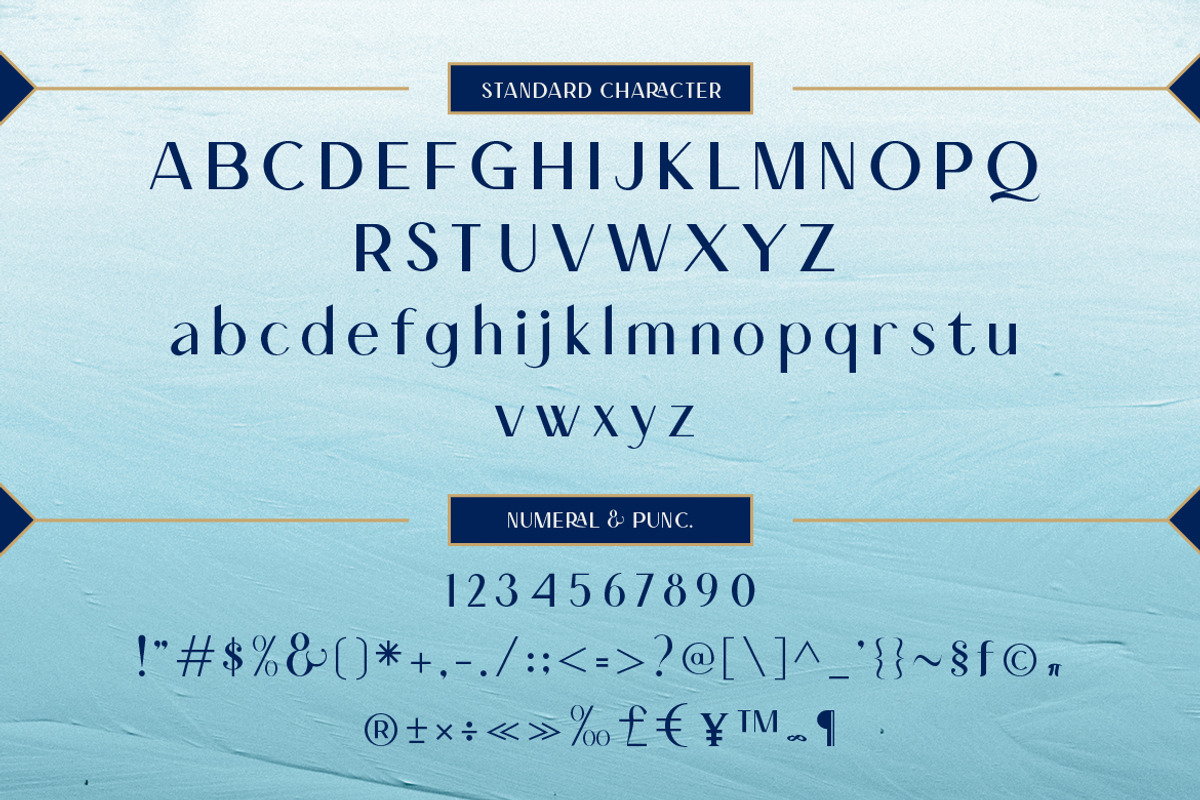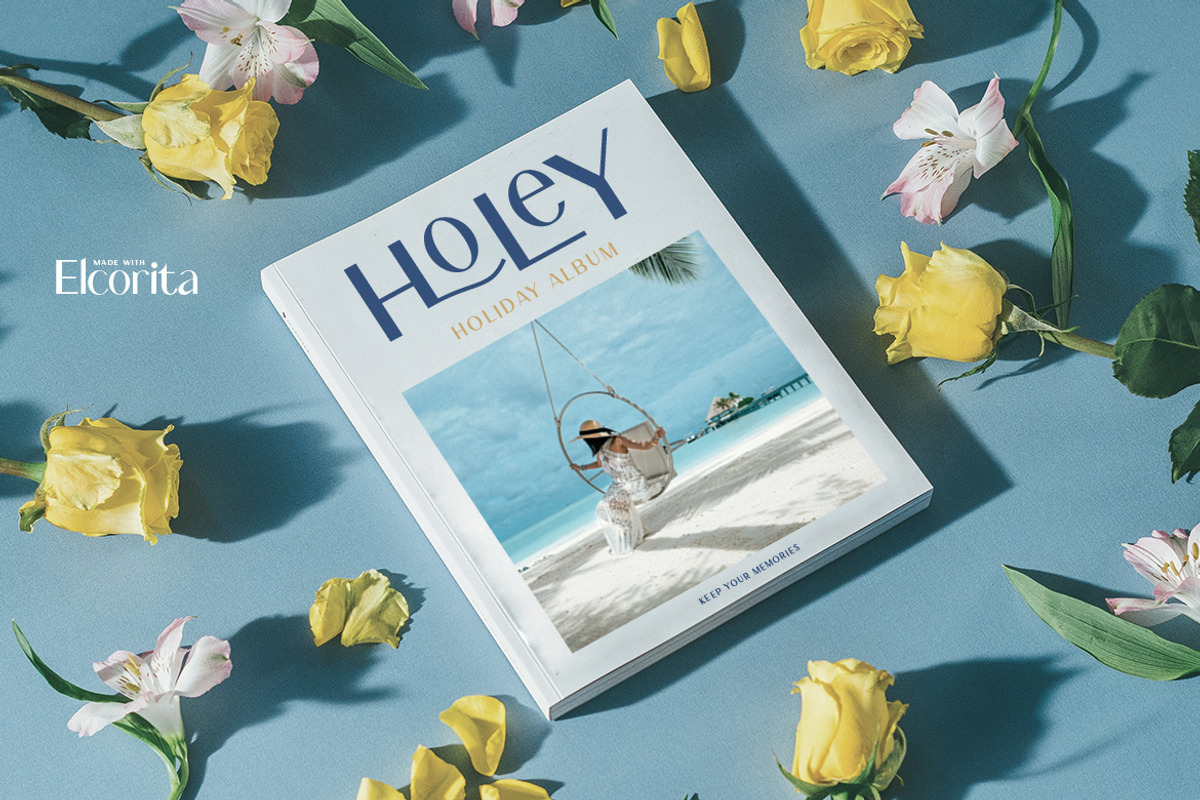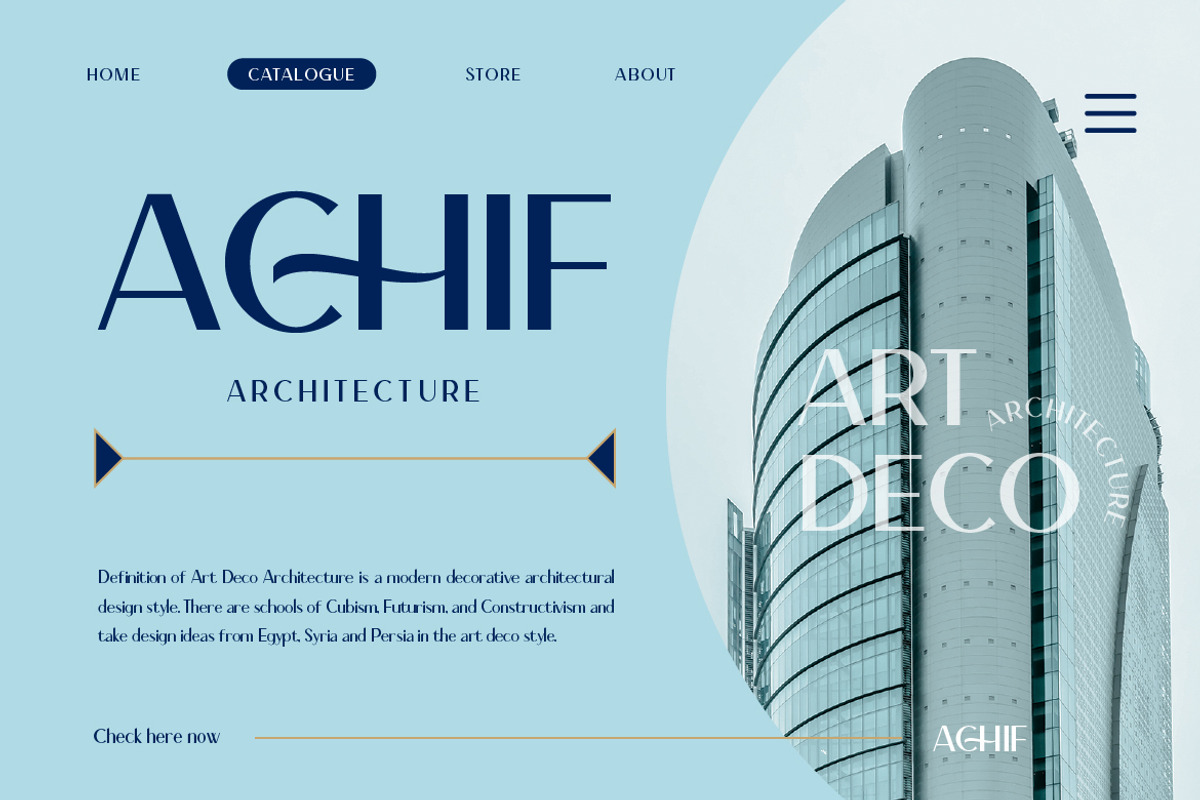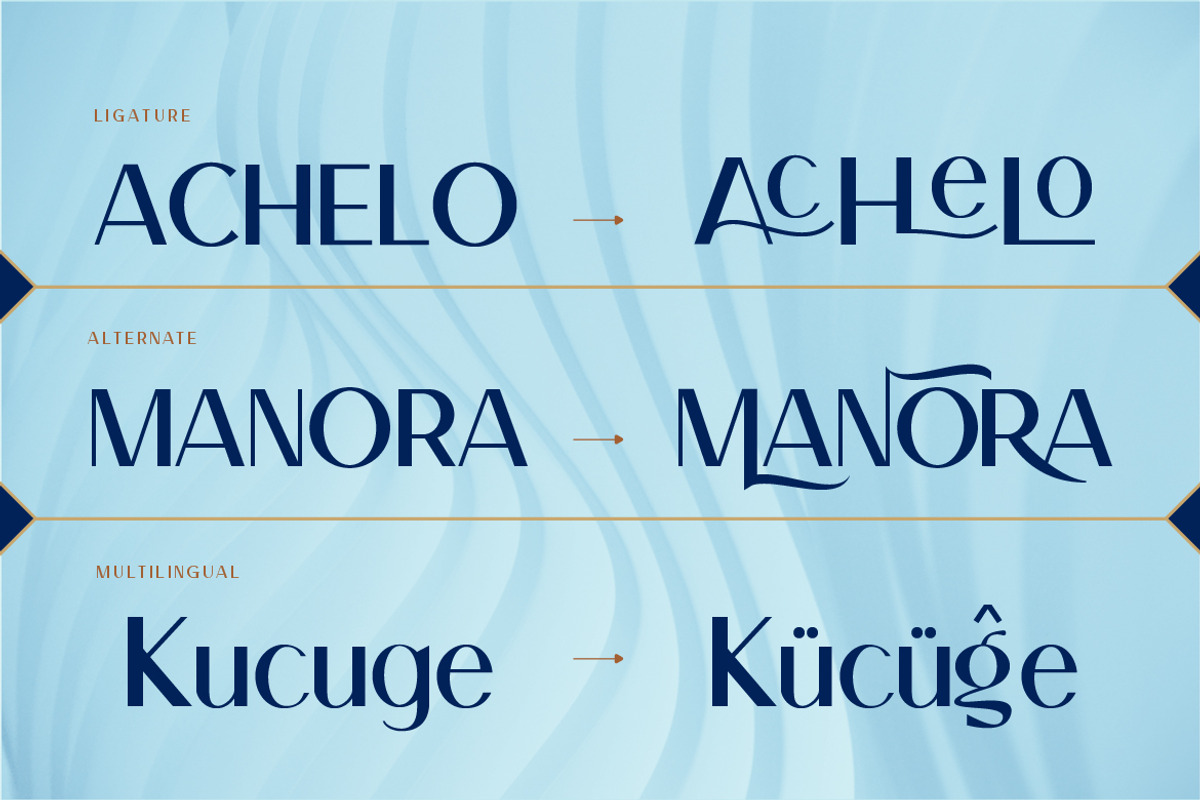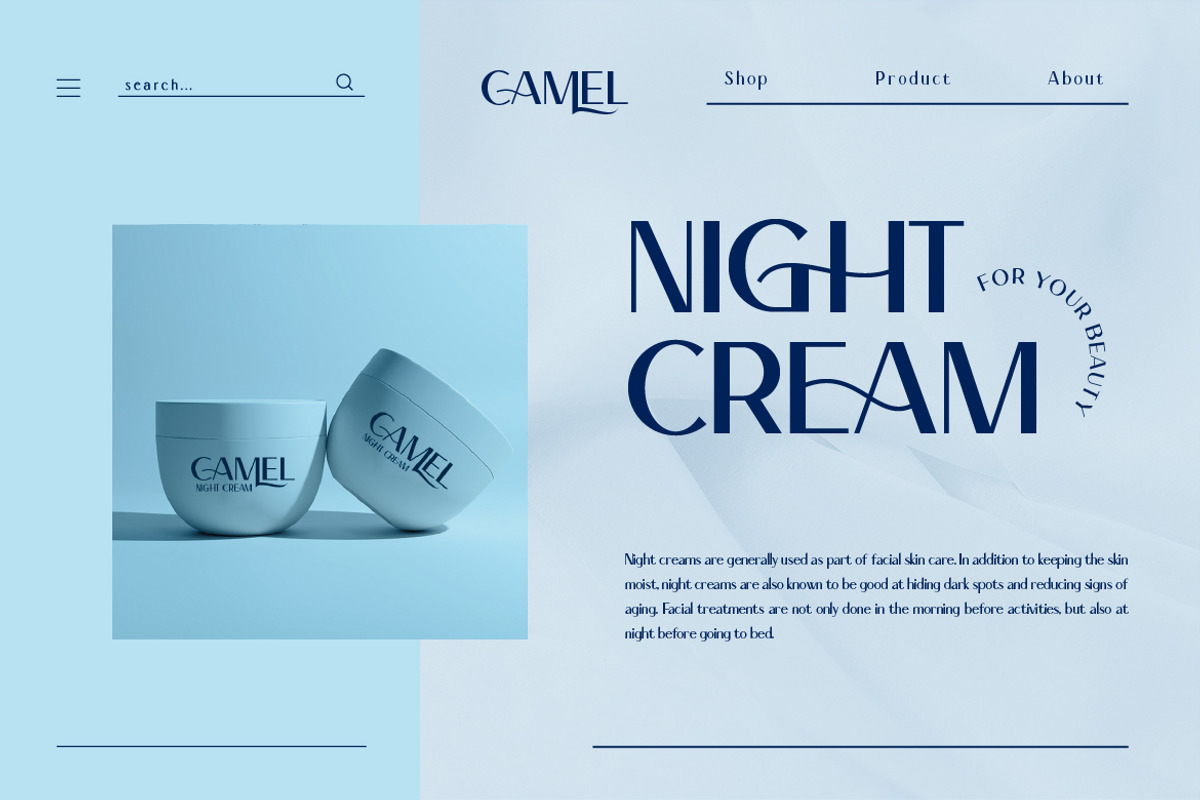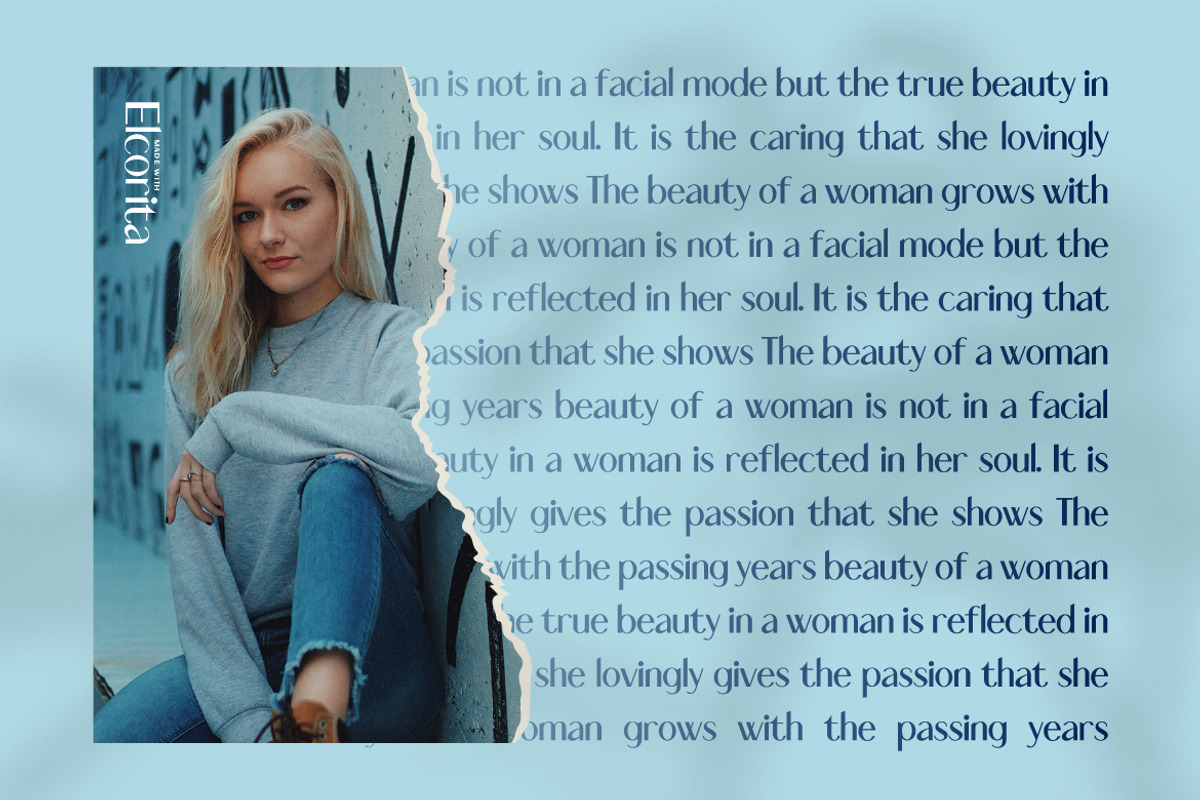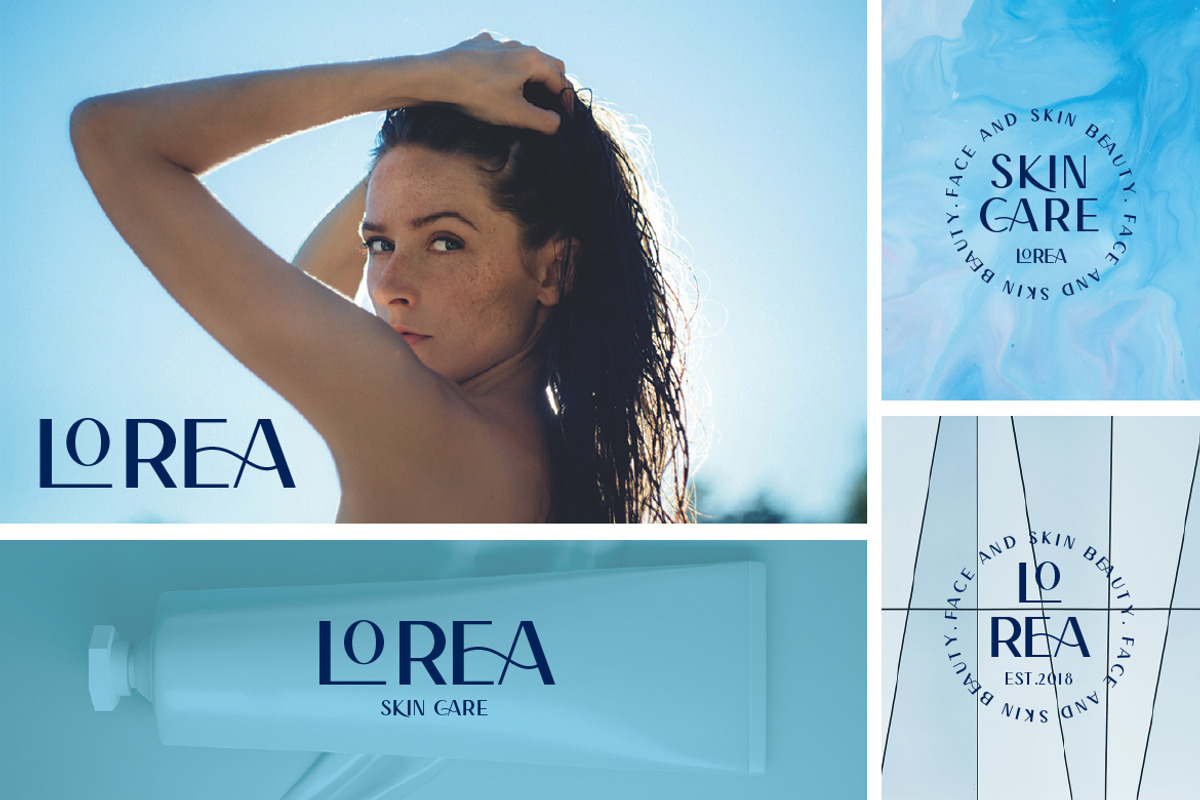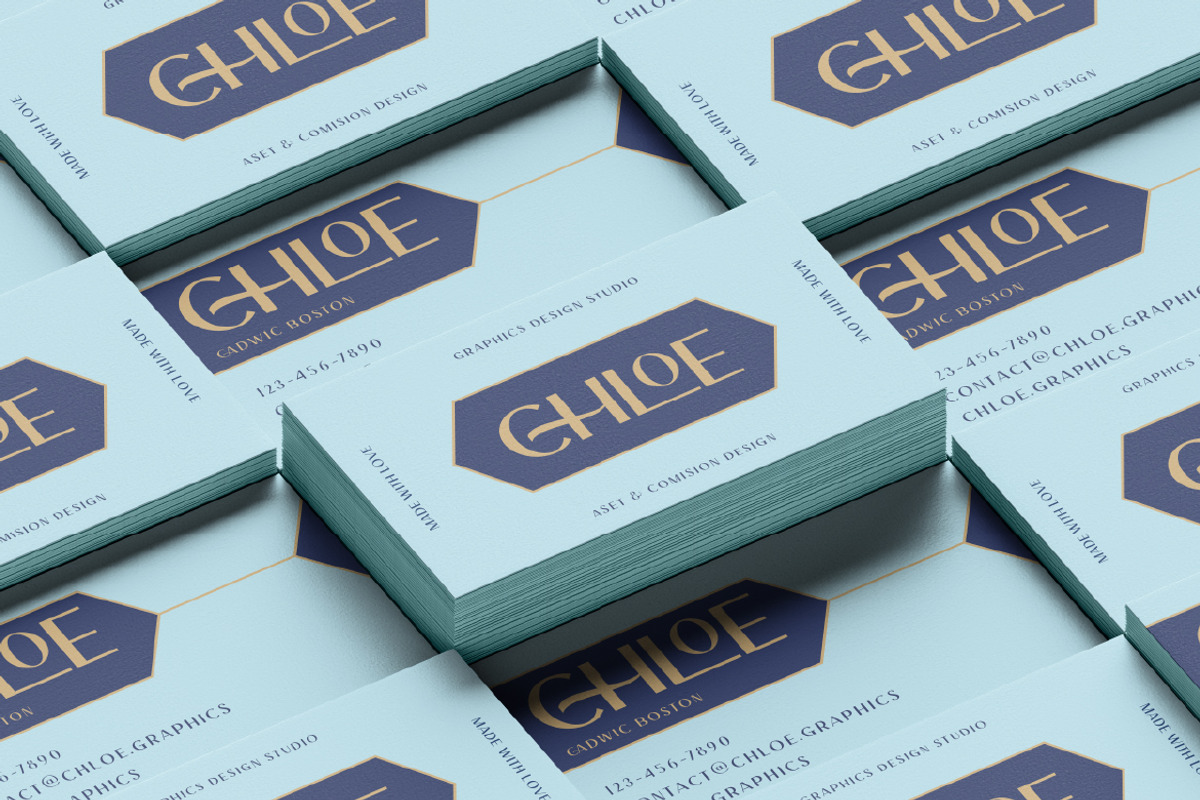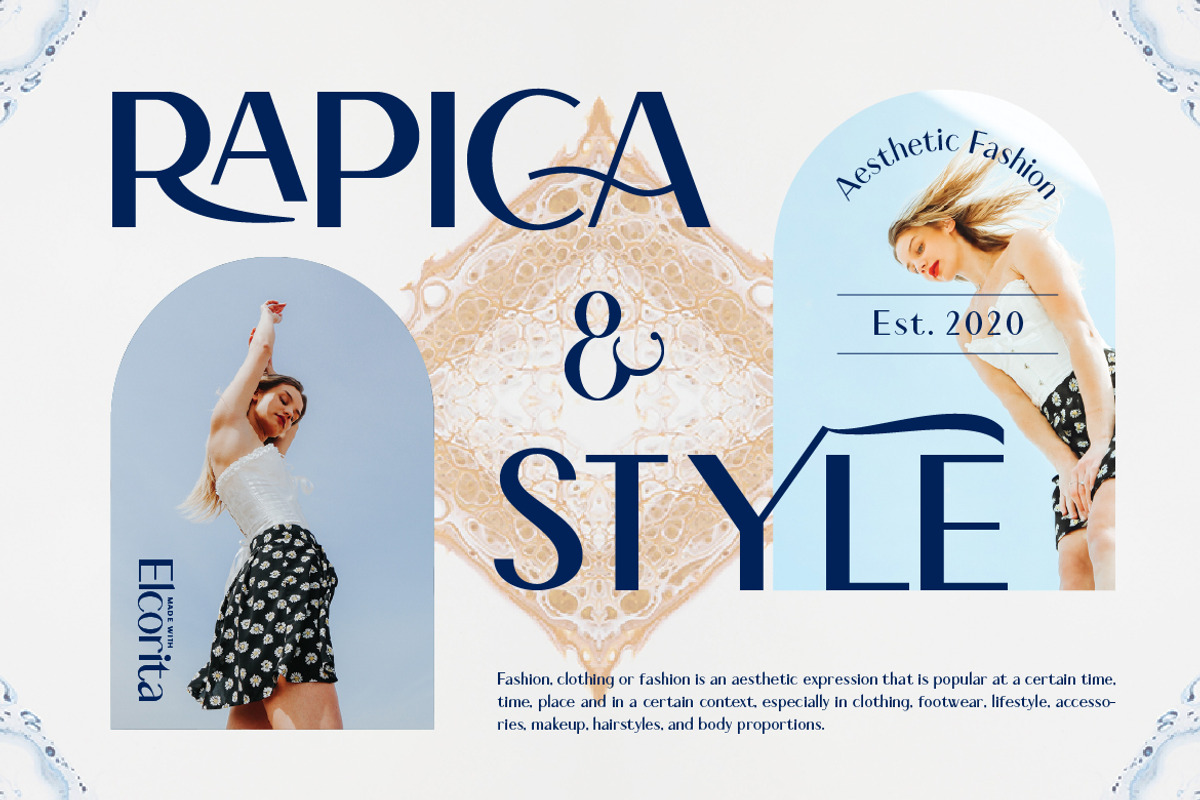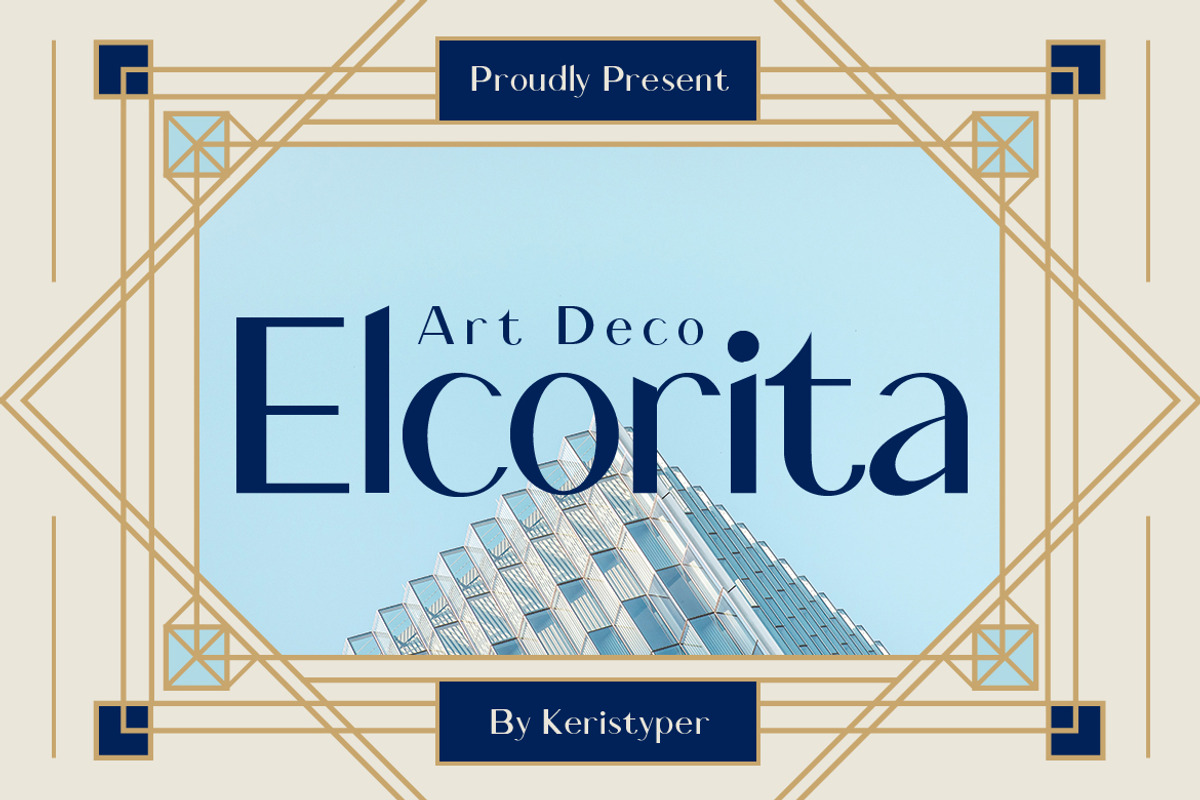
Elcorita
Introducing Elcorita - A Gorgeous modern sans serif art deco inspired with bold contras, clean and simple. This font is good for logo design, Social media, Movie Titles, Books Titles, short text even long text letters, and good for your secondary text font with sans or serif.
- Standard Uppercase & Lowercase
- Multilingual : ä ö ü Ä Ö Ü ß ¿ ¡
- Alternate & Ligature